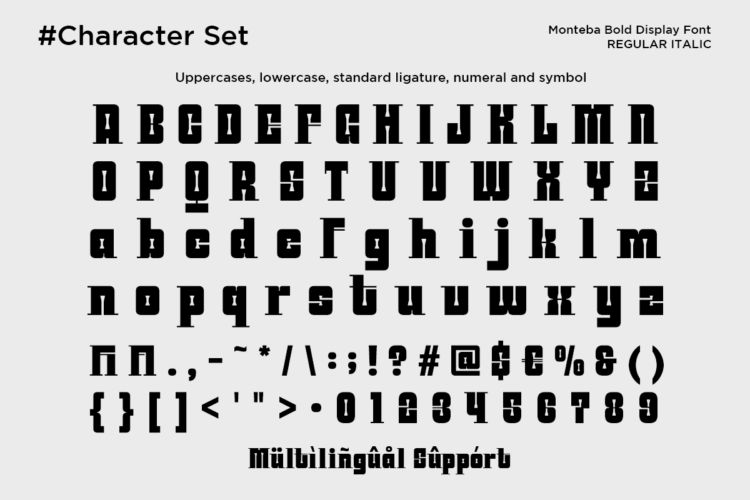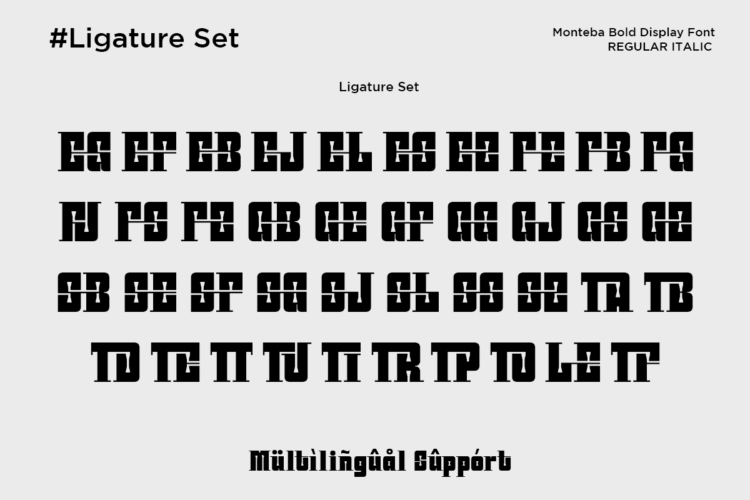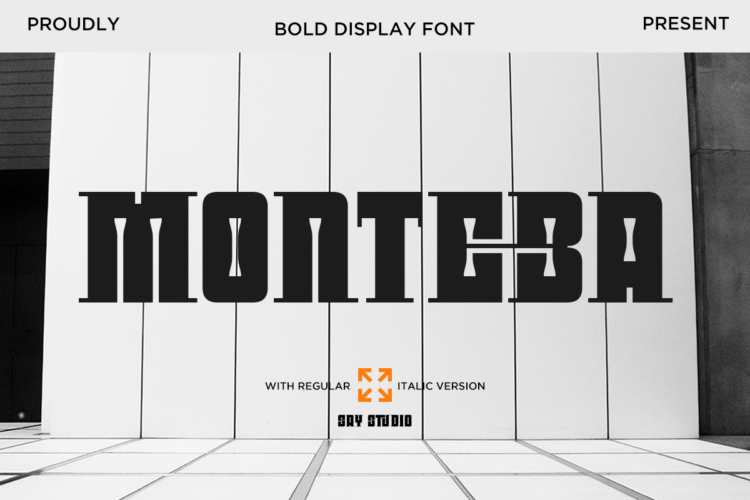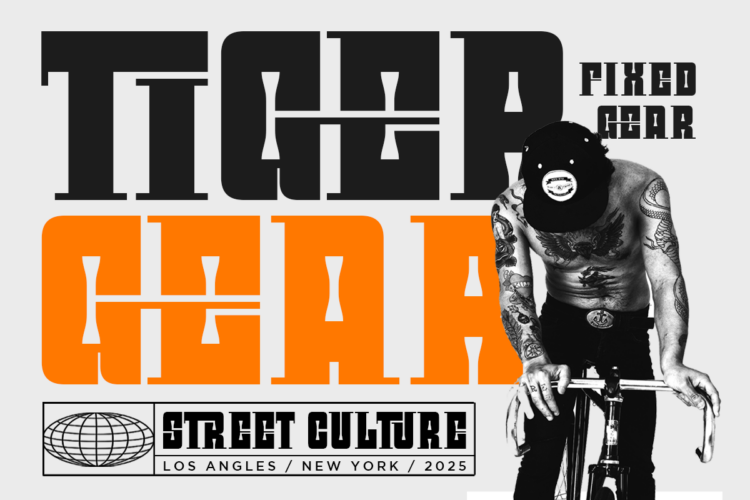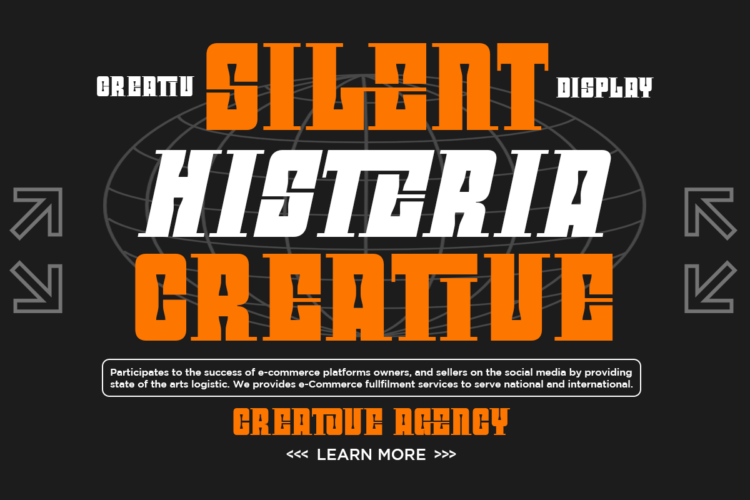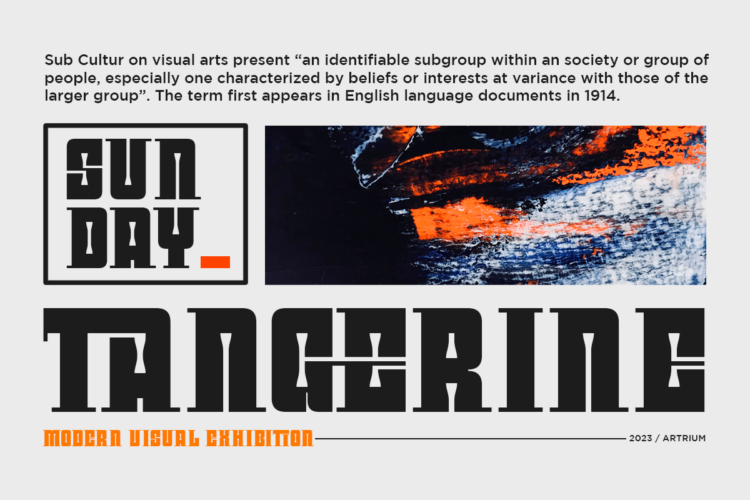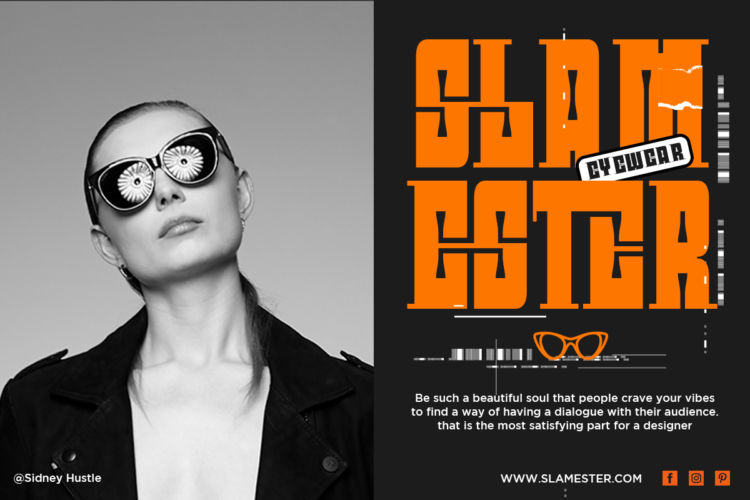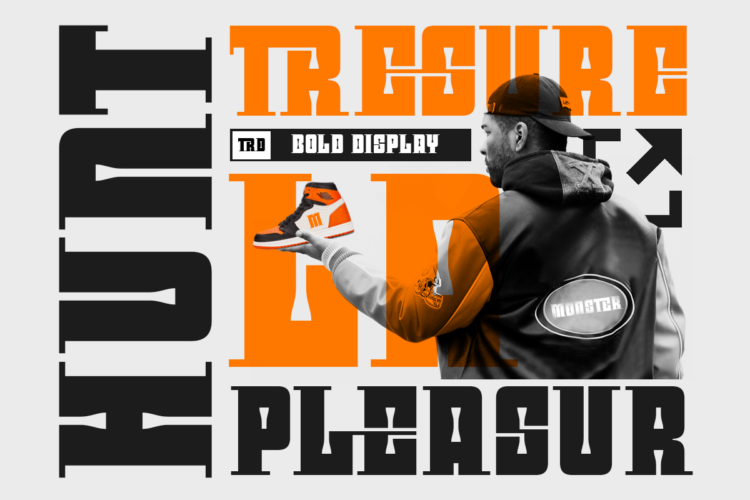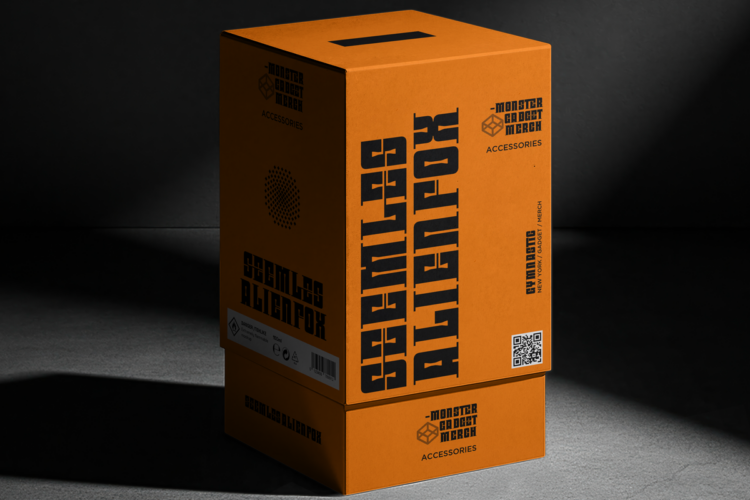
Monteba – Bold Display Font
Monteba is a bold display slab serif font built for strong visual impact. Featuring thick serifs, solid proportions, and confident letterforms, MONTEBA is ideal for headlines, posters, logos, branding, editorial layouts, and professional typography projects. Its powerful and structured style delivers a modern yet classic feel, making it perfect for designs that demand strength, clarity, and authority.
– Uppercase, Lowercase
– Ligatures
– Symbol, Number